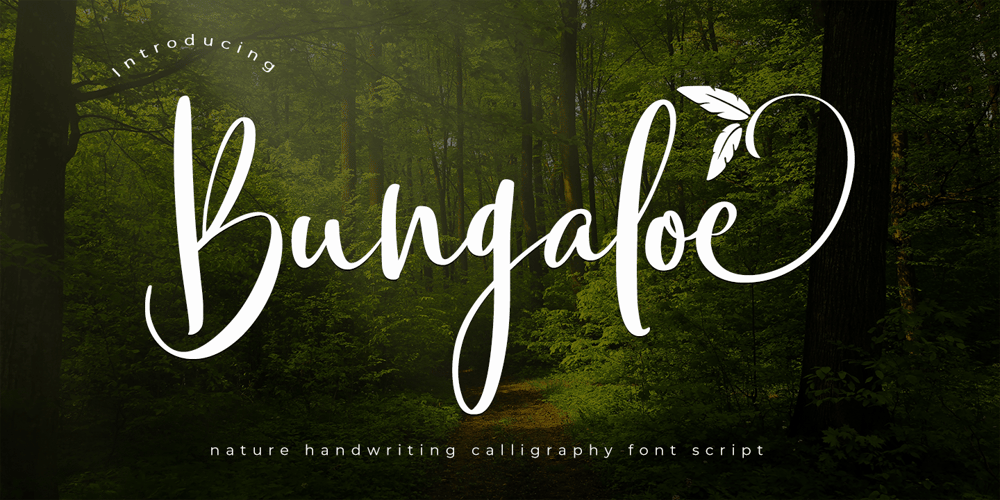
Bungaloe Font Family was designed by Muhammad Zaini and published by Cocodesign. Bungaloe contains 1 styles and family package options. Bungaloe is an elegant and dainty handwritten font that features sweet and delicate swashes. This original look will appeal to a wide range of crafty ideas, from letterheads and titles, to stationery.